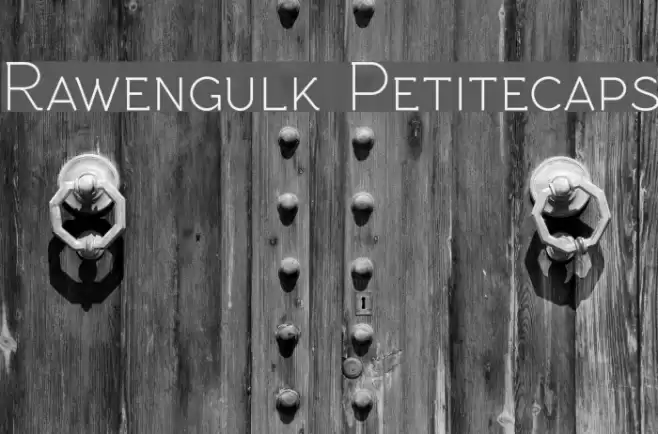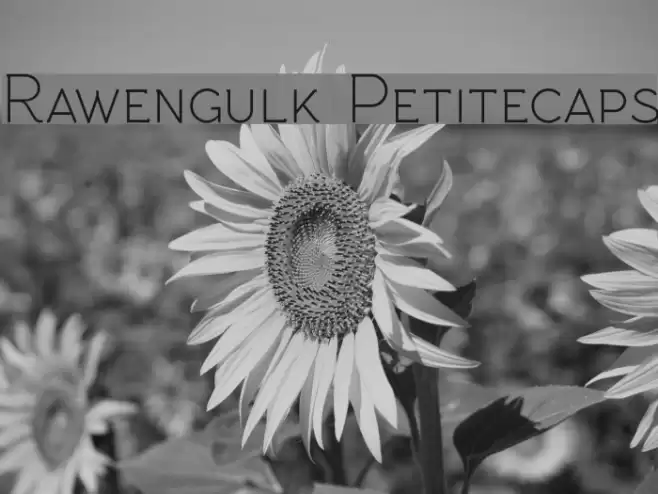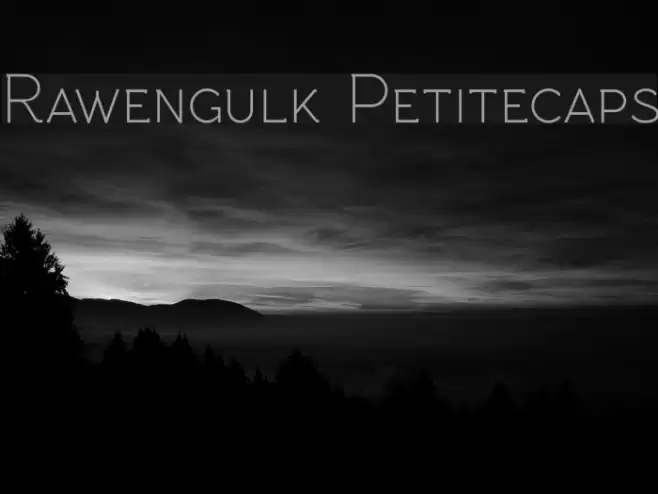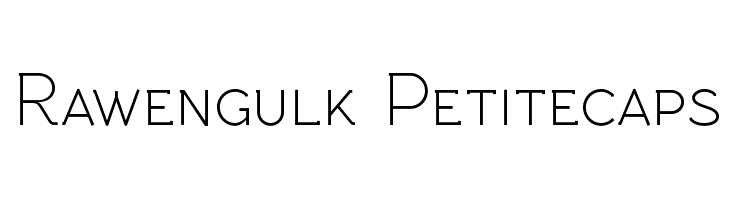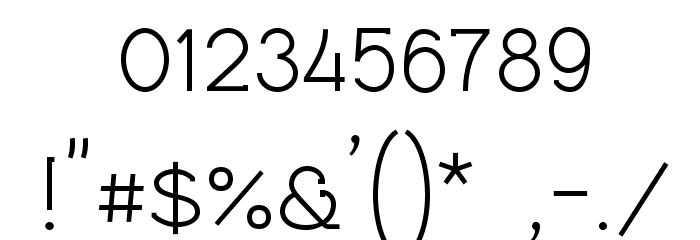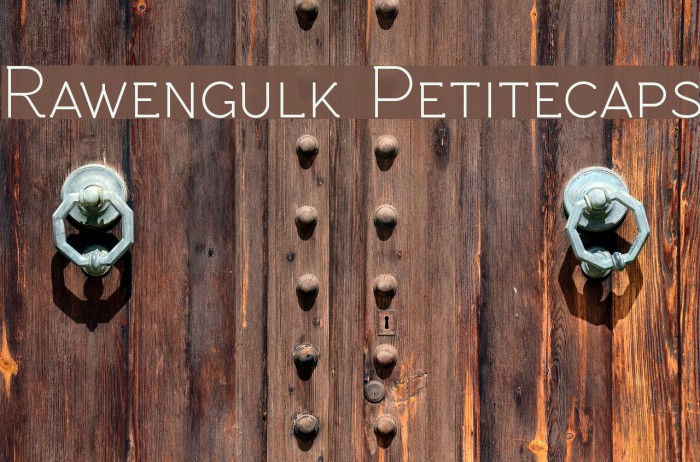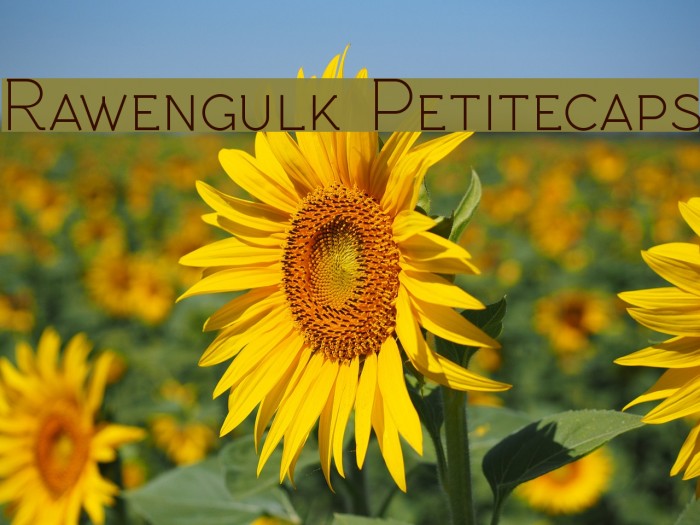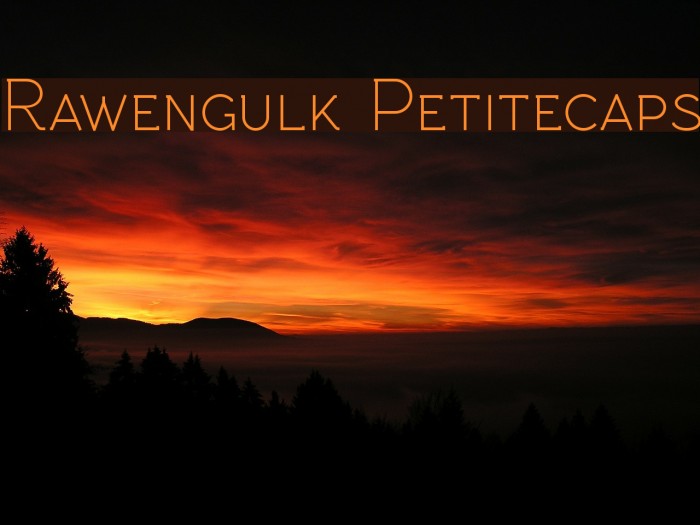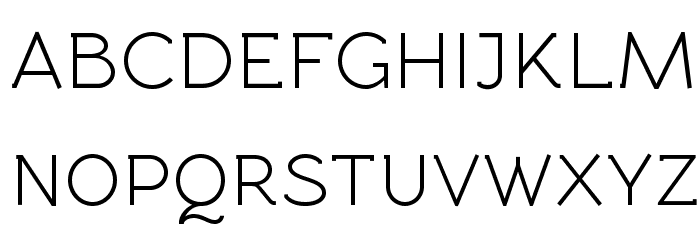
Rawengulk Petitecaps Font
Rawengulk Petitecaps Description
This font presents a clean and modern aesthetic with its thin, uniform strokes and minimalistic design. The uppercase and lowercase letters are crafted with precision, featuring a geometric structure that emphasizes clarity and readability. The numerals and special characters maintain the same sleek style, ensuring consistency across all elements. Its simplicity and elegance make it suitable for a wide range of applications, from digital to print media. The font's design is versatile, offering a contemporary look that can enhance both professional and creative projects.
A modern, clean font with thin, geometric strokes and high readability from Uncategorized fonts.
- Proposed Projects: Ideal for branding, editorial design, digital interfaces, and minimalist posters.